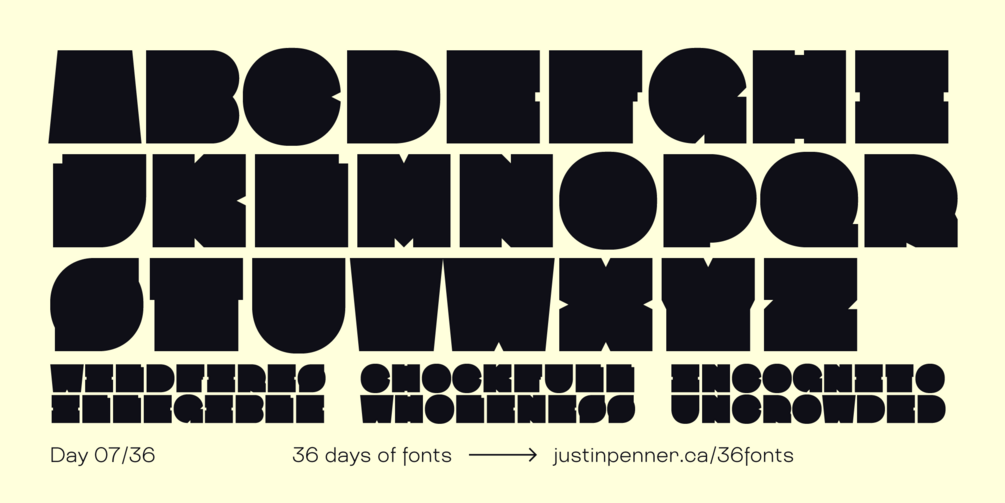
36 Days of Fonts: Day 07
Nibbles
Inspired by Milton Glaser's famous Baby Teeth typeface, with tiny bites taken out of each letter, making them just legible enough to work as a display font.